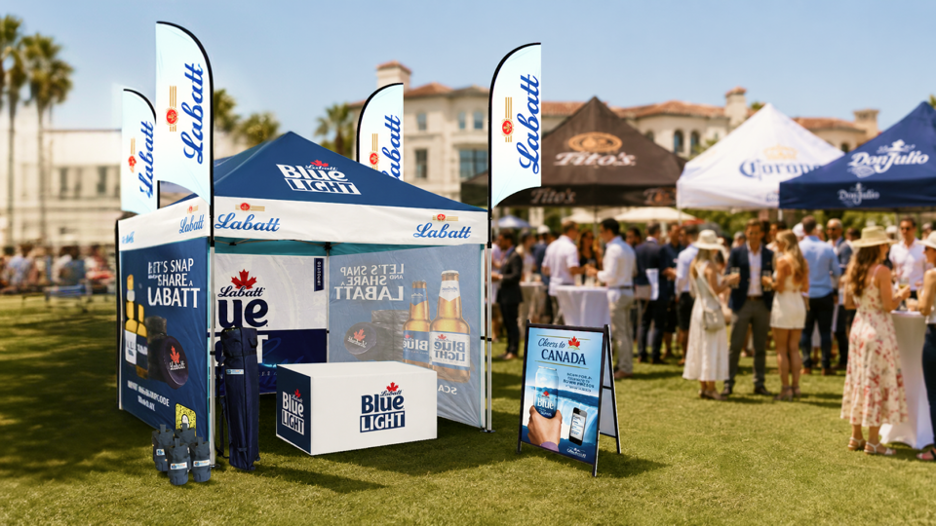
What Fonts Work Best for Trade Show Tents and Displays
Typography on a custom canopy tent serves one primary function: instant legibility from a distance. In a crowded exhibition hall, your choice of typeface determines whether an attendee can identify your brand from fifty feet away or if they walk past because your message is a visual blur. Most business owners spend weeks on their logo but only seconds on their font selection, failing to realize that a font is the primary carrier of their value proposition.
Large-format printing requires different rules than digital or print media. On trade show display booths, fonts must maintain their integrity when scaled up to several feet in height. The most effective fonts share specific characteristics like
- high x-heights
- open counters
- consistent stroke weights.
If the gaps inside letters like “o” or “a” are too small, they will fill in and become solid blobs when viewed from a distance.
The Sans-Serif Standard for Maximum Clarity
Sans-serif fonts are the most effective for outdoor and large-scale displays. They lack decorative tails, which prevents letters from bleeding together when viewed from an angle.
This is particularly important for tent valances, where the fabric might ripple or sag slightly. You need a font that maintains its shape regardless of the medium.
Helvetica is the gold standard for neutral, high-speed processing. Its character spacing is designed for clarity, making it the safest choice for brand names. Gotham is another powerhouse, offering a professional and modern appearance that performs exceptionally well on fabric surfaces.
For brands that want to appear more contemporary or geometric, Montserrat is a top contender. It remains readable even in low-light environments or under the harsh, flickering lights of a convention center.
Utilizing Slab Serifs for Brand Weight
If your brand requires a “heavy” or more industrial look, slab serifs provide the necessary weight without the clutter of traditional serifs. Unlike standard serifs, which have delicate, tapered ends, slab serifs use thick, block-like strokes. This ensures the decorative elements do not disappear into the background when printed on large-scale displays.
Rockwell is a classic choice in this category. Its sturdy shapes make it excellent for headers on valances where you want to project a sense of stability and strength. Arvo is a more contemporary slab serif that balances personality with extreme legibility.
These fonts are ideal when you want to stand out from the sea of minimalist sans-serif designs while still ensuring that your text is not a chore to read.
Why Styles and Weights Can Fail Your Brand
Understanding what works is only half the battle; you must also recognize which styles will actively sabotage your visibility. Decorative, script, and ultra-thin fonts fail in trade show environments.
Script fonts create “visual noise” that the human brain cannot decode quickly at a distance. If a passerby has to stop and squint to figure out if a letter is an “L” or an “E,” they will simply keep walking.
Thin or light-weight fonts are equally problematic. From a distance, thin lines disappear against the texture of the tent fabric or get washed out by bright overhead lighting. You should also avoid condensed fonts, which squash letters together. While they allow you to fit more text into a small space, they destroy legibility. If a font requires effort to read, it is a failure for your marketing.
Transitioning From Style to Visibility: The Role of Contrast
Even the perfect font cannot overcome poor color choices. The best typeface is useless without a high-contrast color palette. For maximum visibility, use light text on dark backgrounds or dark text on light backgrounds.
Avoid vibrating color combinations like red text on a blue background, which creates a halo effect that makes text appear blurry to the eye.
Once you have selected a bold, legible font and paired it with high-contrast colors, you have created a visual anchor. This foundation allows your booth to communicate your message instantly, freeing you up to focus on the human side of the event. A well-designed display does the heavy lifting of introduction, allowing you to move straight into the pitch.